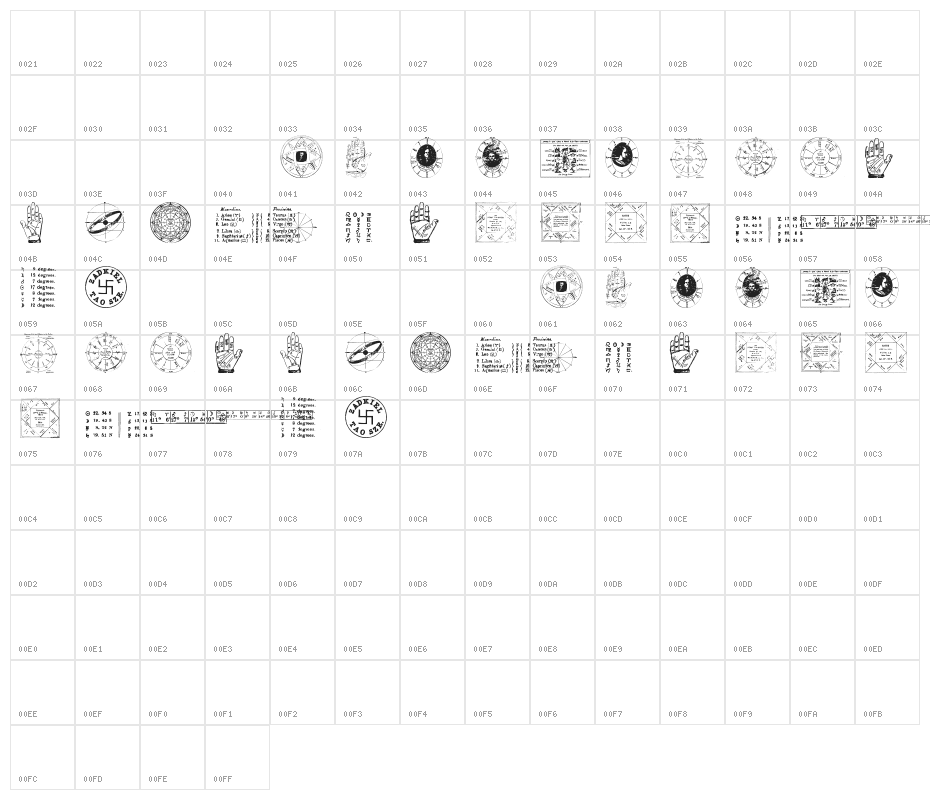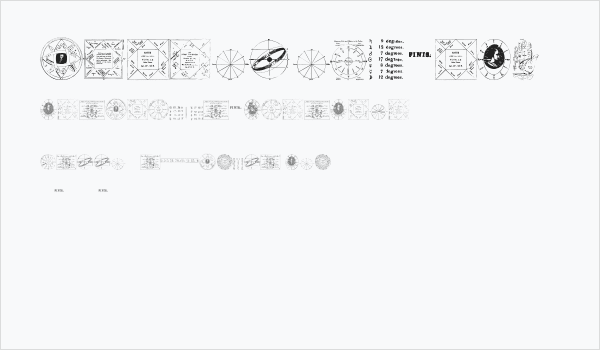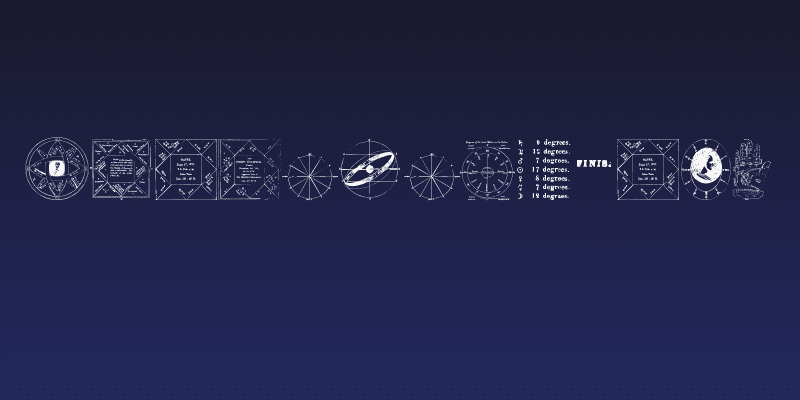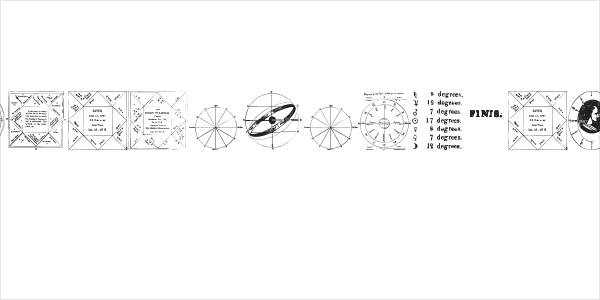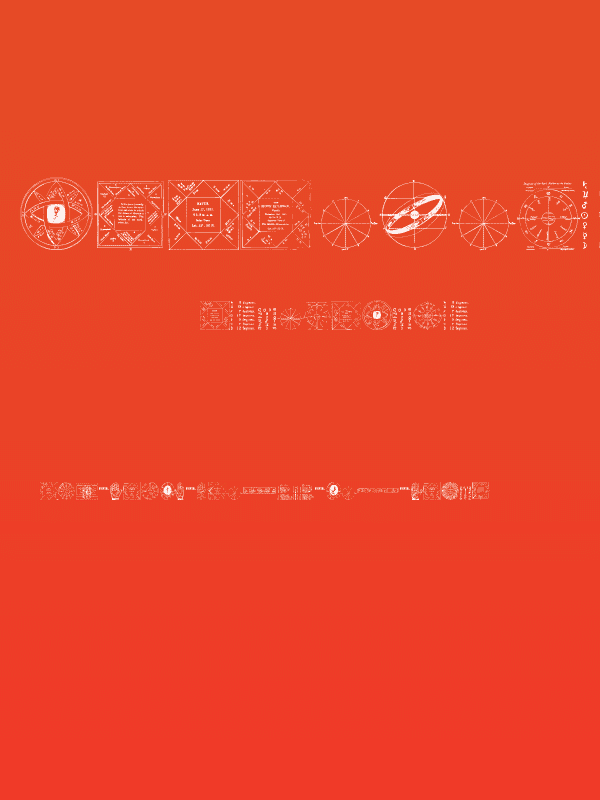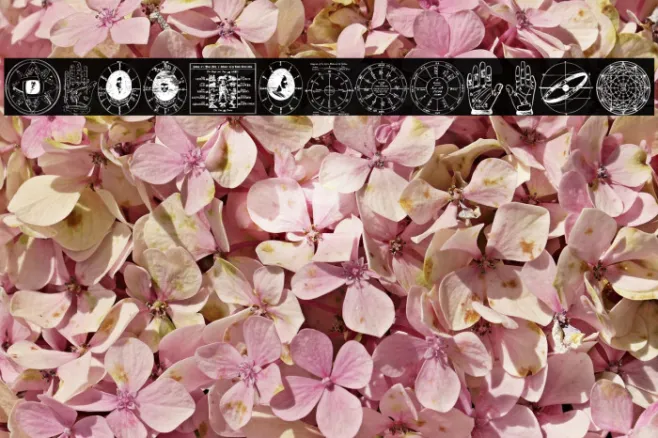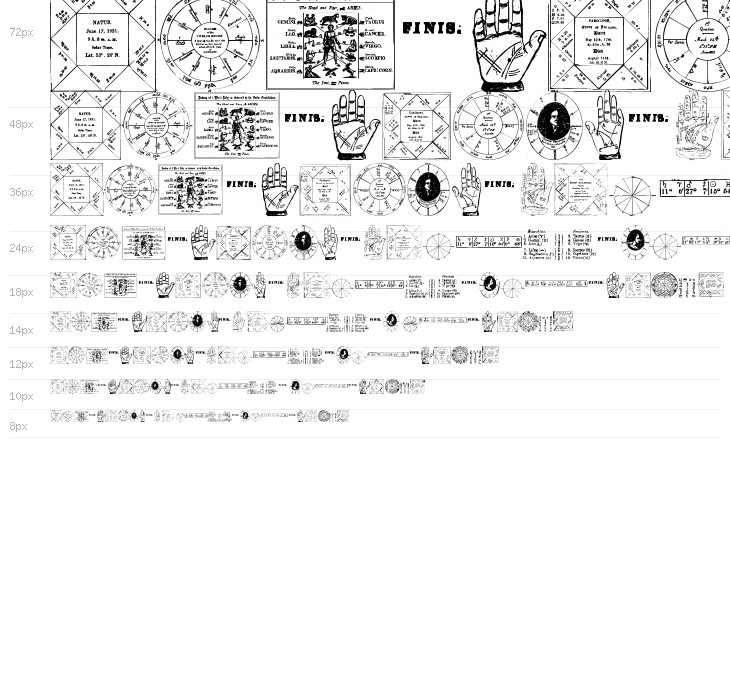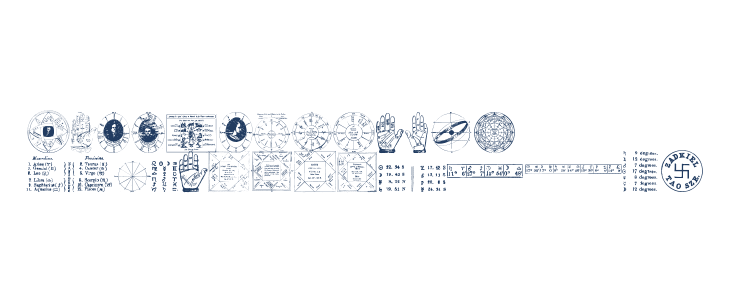
Astrology tfb Font
Astrology tfb Description
A highly decorative and illustrative font featuring astrological charts, palmistry diagrams, celestial illustrations, and esoteric symbols in place of standard alphanumeric characters. The style is intricate, with detailed linework and a vintage, mystical aesthetic reminiscent of old astrology and occult manuscripts.
| Overall Style | Decorative, Vintage, Mystical |
| Use Case | Logos, Posters, Decorative headings, Themed projects |
| Proposed Projects | Tarot cards, astrology websites, book covers for esoteric or mystical topics, posters, themed invitations, and decorative headings. |